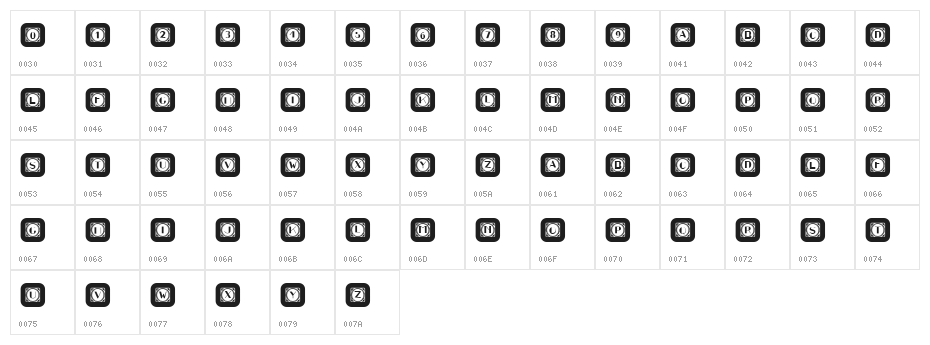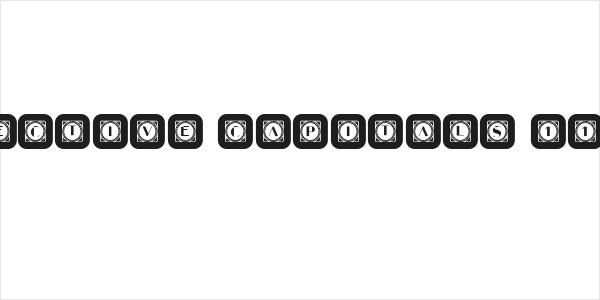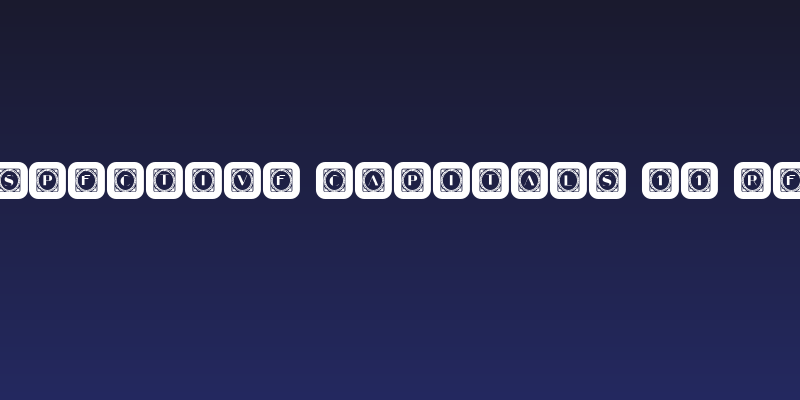
Retrospective Capitals 11 Regular Font
Retrospective Capitals 11 Regular Description
This font features a distinctive decorative style with each character enclosed in a square frame, reminiscent of vintage typewriter keys. The letters are bold and uppercase, with a classic serif design that adds an elegant touch. The numbers and special characters follow the same stylistic approach, ensuring consistency across all elements. The overall appearance is both nostalgic and sophisticated, making it suitable for projects that require a retro or vintage aesthetic. The high contrast between the thick strokes of the letters and the thin lines of the frame enhances readability while maintaining a unique visual appeal.
| Use Case | Headlines, Logos, Decorative text |
| Proposed Projects | Ideal for retro-themed designs, vintage posters, branding, and decorative invitations. |